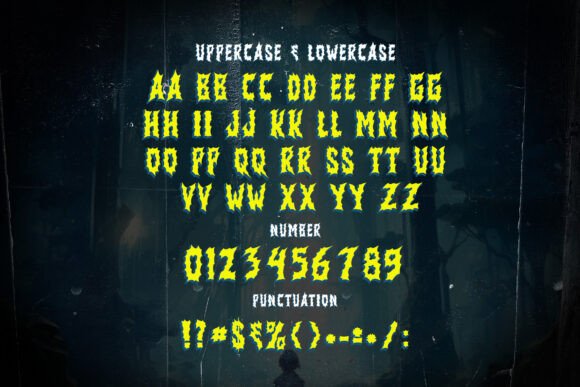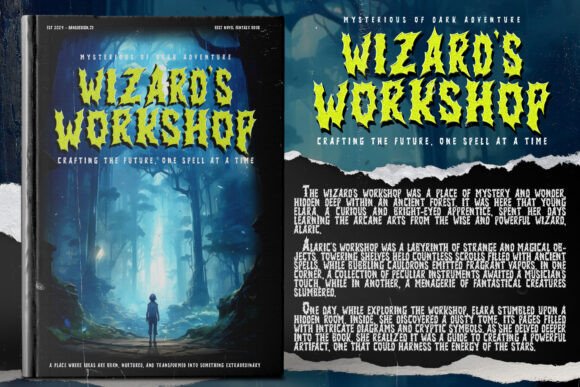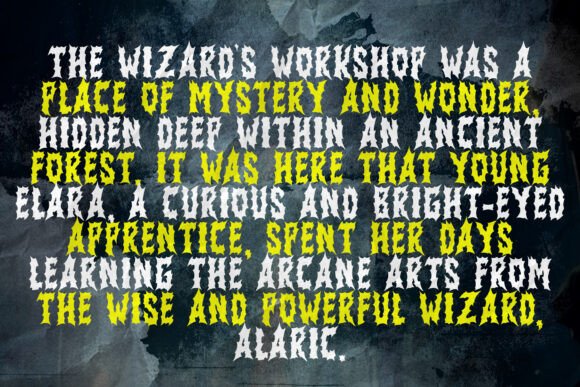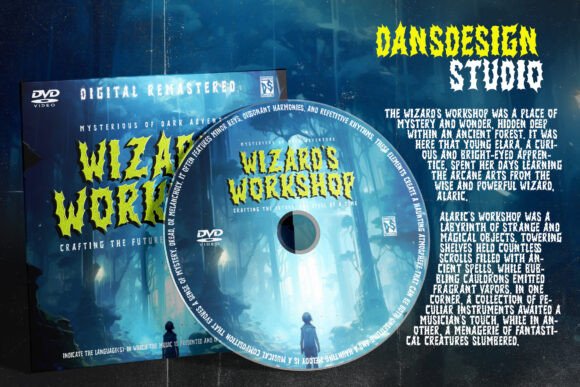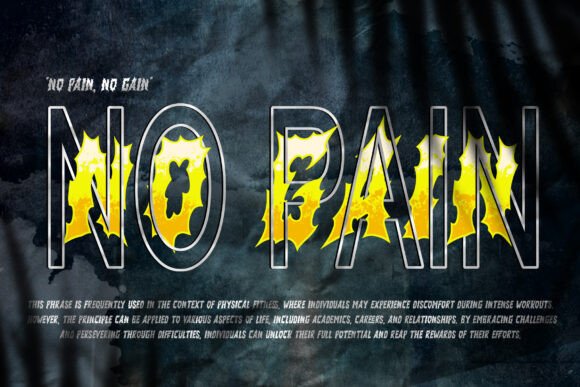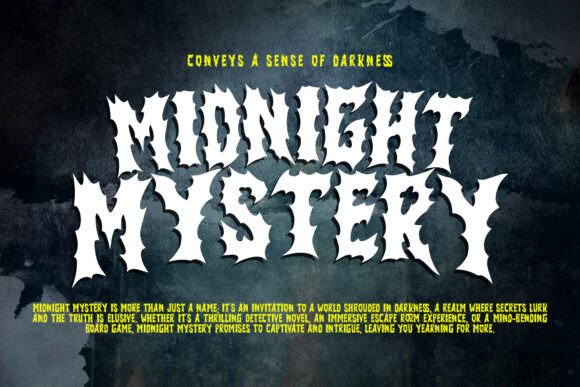
Introduction to Oracle Domain Font
Do you remember that moment when you stumbled upon the perfect design resource that changed the game for your creative project? For designers, it’s a thrill to discover a font that captures the essence of our vision, and this time, it’s the Oracle Domain Font that’s got everyone buzzing. This bold, edgy font is a masterful blend of metal, horror, and graffiti art, with a Y2K vibe that’s hard to resist.
With its dark, apocalyptic feel and gritty, urban street art aesthetic, the Oracle Domain Font is perfect for designers looking to add a touch of futuristic rawness to their designs. Whether you’re working on a high-quality project or just need a free download to spice up your portfolio, this font is sure to deliver. And the best part? Its transparent background makes it easy to layer over any image or design, giving you complete creative control.
As a valuable design resource, the Oracle Domain Font is a must-have for any designer looking to push the boundaries of their creative work. So, what are you waiting for? Dive into the world of Oracle Domain Font and discover a new level of design freedom.
Key Features of Oracle Domain Font
- High-quality, professional font suitable for creative projects and design resources.
- Features a high resolution of 300 DPI, ensuring crisp and clear text display in various sizes.
- Designed to be highly legible, making it perfect for use in a variety of creative projects, from branding to publishing.
- Supports a range of languages, including Latin, Cyrillic, and Greek, making it a versatile font for international projects.
Honest Review: Oracle Domain Font
I recently had the chance to dive into the Oracle Domain Font, a design resource that caught my attention due to its unique features and high quality. The first thing I noticed was its ability to seamlessly integrate with a transparent background, making it perfect for creative projects that require a sleek and modern look.
Here are some of the things that I think work well: ✨
- High-quality glyphs that are perfect for logos, branding, and other design elements
- Excellent legibility, even at small font sizes
However, I did encounter some limitations: ⚠️
- Limited font styles and weights, which may not be suitable for complex design projects
- No extensive language support, which could be a concern for designers working on multilingual projects
Overall, I think the Oracle Domain Font is a great addition to any designer’s toolkit, especially for creative projects that require a modern and sleek look. While it may not be perfect for complex design projects, it’s definitely worth considering for smaller-scale projects or as a starting point for more extensive design work.
Designing with Oracle Domain Font
The Oracle Domain Font is a high-quality design resource that offers a unique and creative way to enhance your projects. With its transparent background, this font is perfect for adding a touch of elegance to your designs.
The Oracle Domain Font is perfect for:
- Branding and logo design.
- Business card and brochure design.
- Social media graphics and presentations.
Is the Oracle Domain Font suitable for high-resolution displays?
Yes, the Oracle Domain Font is designed to be highly legible on high-resolution displays, ensuring that your text remains clear and readable even at small font sizes. This makes it an ideal choice for designers working on digital projects that require high-quality typography.